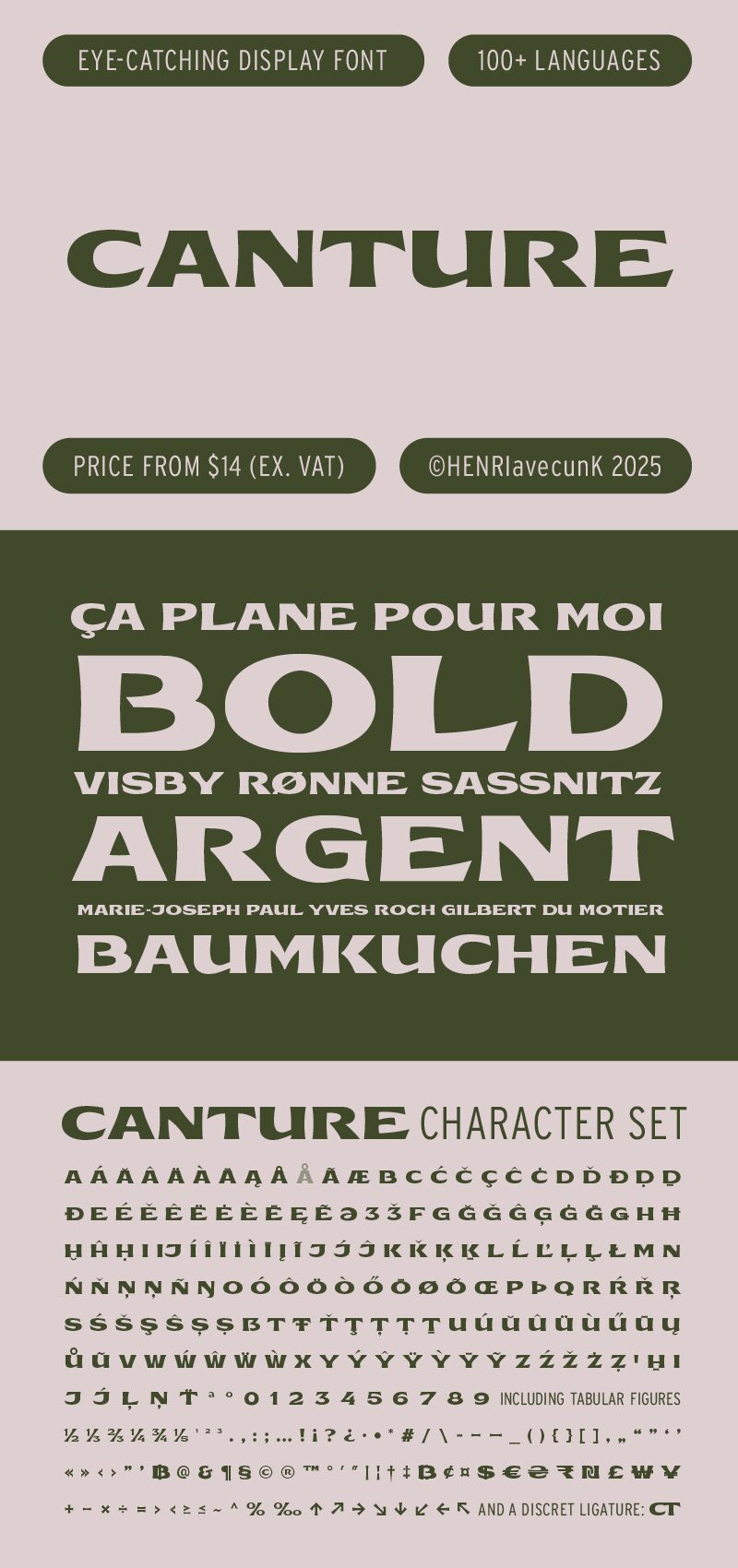
Canture font by HENRIavecunK Type Co is a free serif typeface that combines contemporary flair with traditional elegance. This expressive font boasts dynamic and striking features, making it perfect for capturing attention in modern design. Its distinctive and impactful style fits effortlessly into projects seeking a versatile and unique edge.
Canture is ideal for creating breathtaking logotypes, branding projects, packaging designs, and signage. Its elegance is also well-suited for magazine covers, editorial layouts, and book covers. This font enhances invitations, websites, social media graphics, and advertising campaigns with its memorable and distinctive appearance.
Unleash Bold Sophistication: Discover Canture
Canture is a striking typeface that seamlessly blends raw power with refined elegance. Every curve is intentional, and every line commands attention. Whether you are designing for a bold luxury brand, a modern editorial, or a captivating digital experience, Canture delivers both presence and poise.
Engineered for impact yet crafted with subtlety, this font stands out in headlines while maintaining a graceful detail. It's more than just typography; it's a statement of personality.